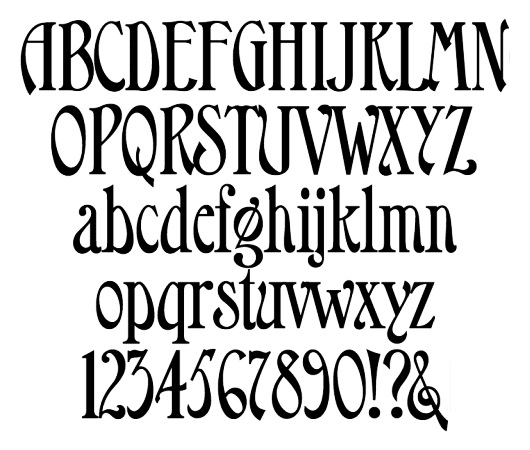
Longfellow Font
Longfellow Font is ideal for literary publications, poetry books, classic novel covers, academic journals, historical documentaries, museum exhibitions, scholarly presentations, vintage bookstore branding, educational materials, and prestigious award ceremonies.
What makes Longfellow Font exciting is its timeless literary elegance that captures the spirit of classical literature and scholarly tradition. This distinguished typeface features refined serif characteristics with balanced proportions that evoke the dignity and intellectual gravitas of great literary works while maintaining exceptional readability for extended reading.
Longfellow Font family includes light, regular, and bold weights with matching italics and small caps variations, providing editors and designers with comprehensive typographic tools for creating sophisticated literary presentations and academic publications.
Longfellow Font embodies intellectual sophistication with its carefully crafted letterforms that honor traditional typography while meeting contemporary publishing standards. This versatile typeface successfully combines classical authority with modern functionality, making it perfect for institutions and publications requiring scholarly credibility and literary distinction.
Publishers and academic institutions consistently choose Longfellow Font Free Download for its ability to communicate intellectual authority and literary excellence across diverse scholarly applications. The font's classical character and superior readability ensure respected representation in competitive academic markets requiring proven scholarly standards.
The extensive character library includes complete Latin alphabets, comprehensive punctuation, academic symbols, and scholarly notation marks supporting international literary and educational publications. Longfellow Font offers advanced OpenType features with ligatures and small caps for professional academic typography.
Longfellow Font performs exceptionally in both premium print publications and digital scholarly platforms, maintaining its distinguished character whether featured in leather-bound books, displayed on academic websites, or used in museum catalog layouts. The font's refined construction ensures consistent scholarly presentation.
Literary editors and academic designers appreciate how Longfellow Font instantly establishes intellectual credibility and scholarly authority in publishing projects. Its distinguished classical personality helps educational institutions and literary organizations maintain respected positioning while honoring traditional academic values.
Whether you're publishing scholarly works, creating literary marketing materials, or designing educational communications, Longfellow Font provides the intellectual authority and classical elegance essential for prestigious academic and literary applications.